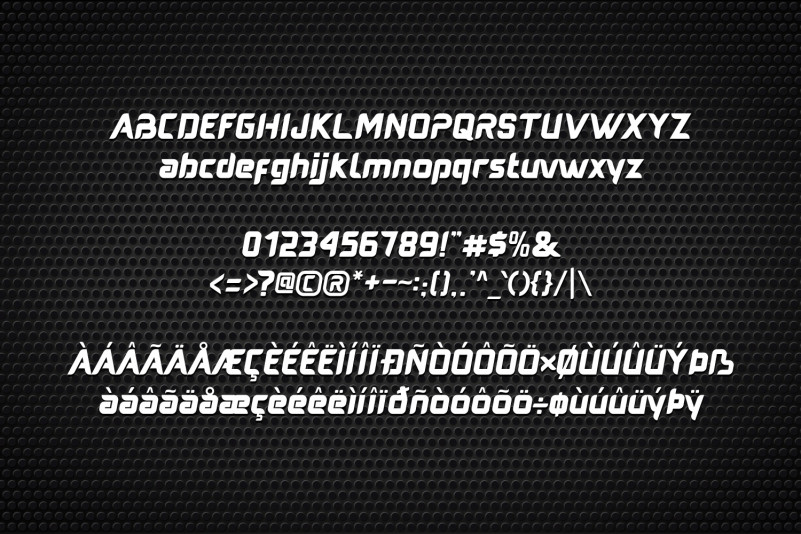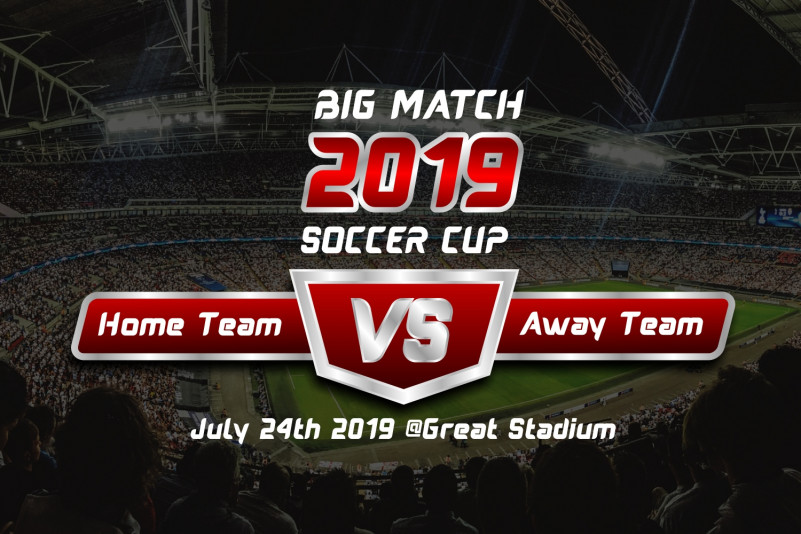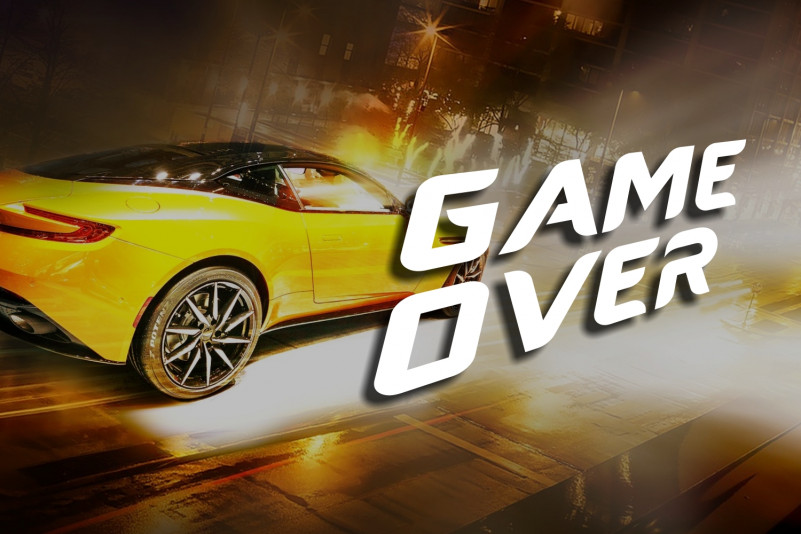
Austere Display Font
Austere Display Font is a display font with a futuristic and sporty style. Take a step into the future with this cutting edge font.